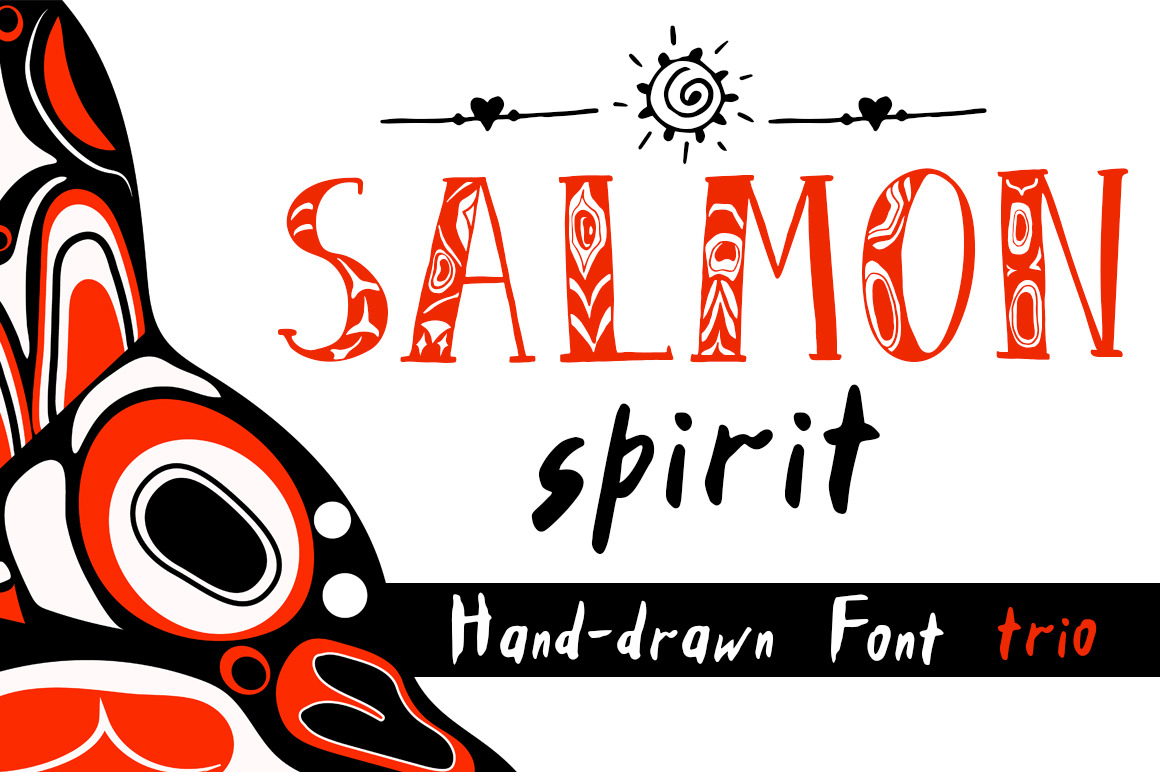
Salmon Spirit Font Trio
Introducing Salmon Spirit Font Trio! 100% Handwritten font trio with lots of personality performed in North American Indigenous style.
Handwritten font perfect for greeting cards, branding, social media, packaging, prints and more.